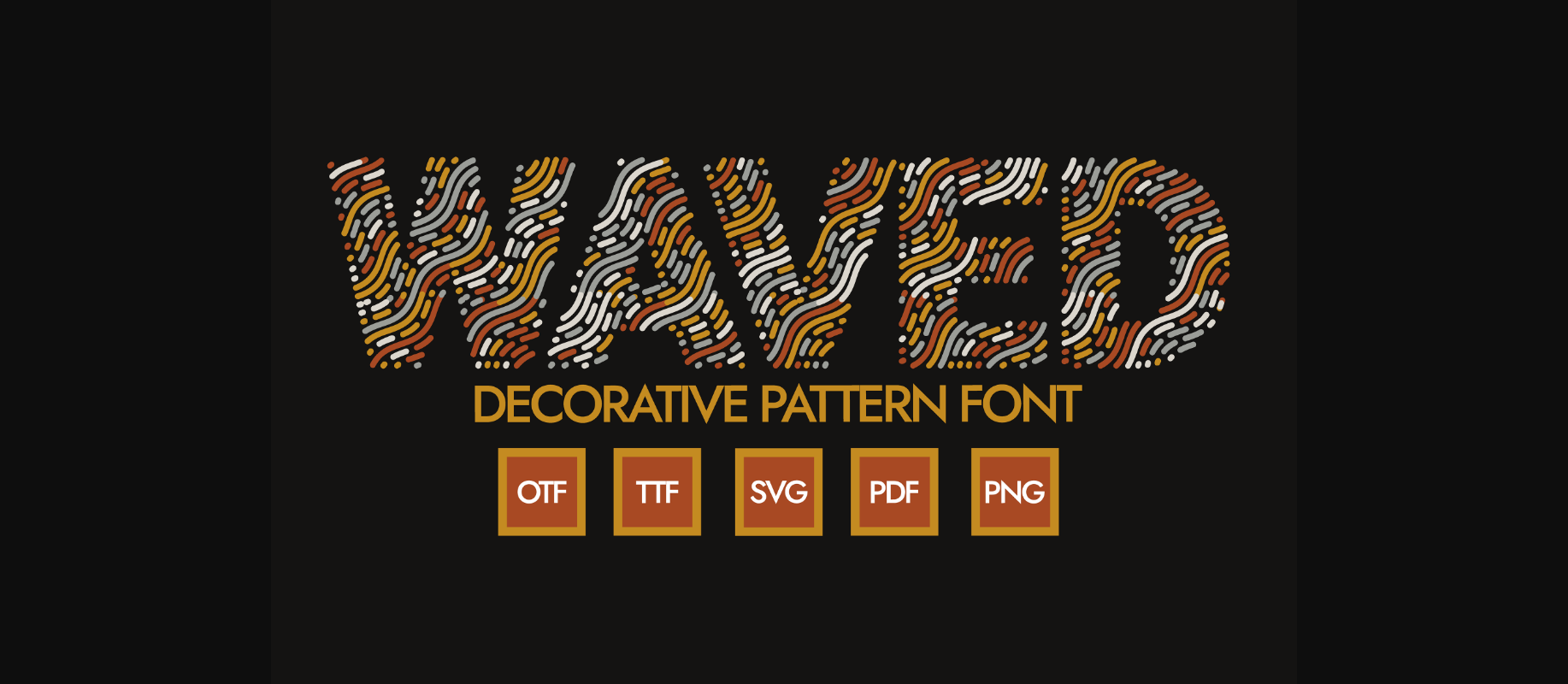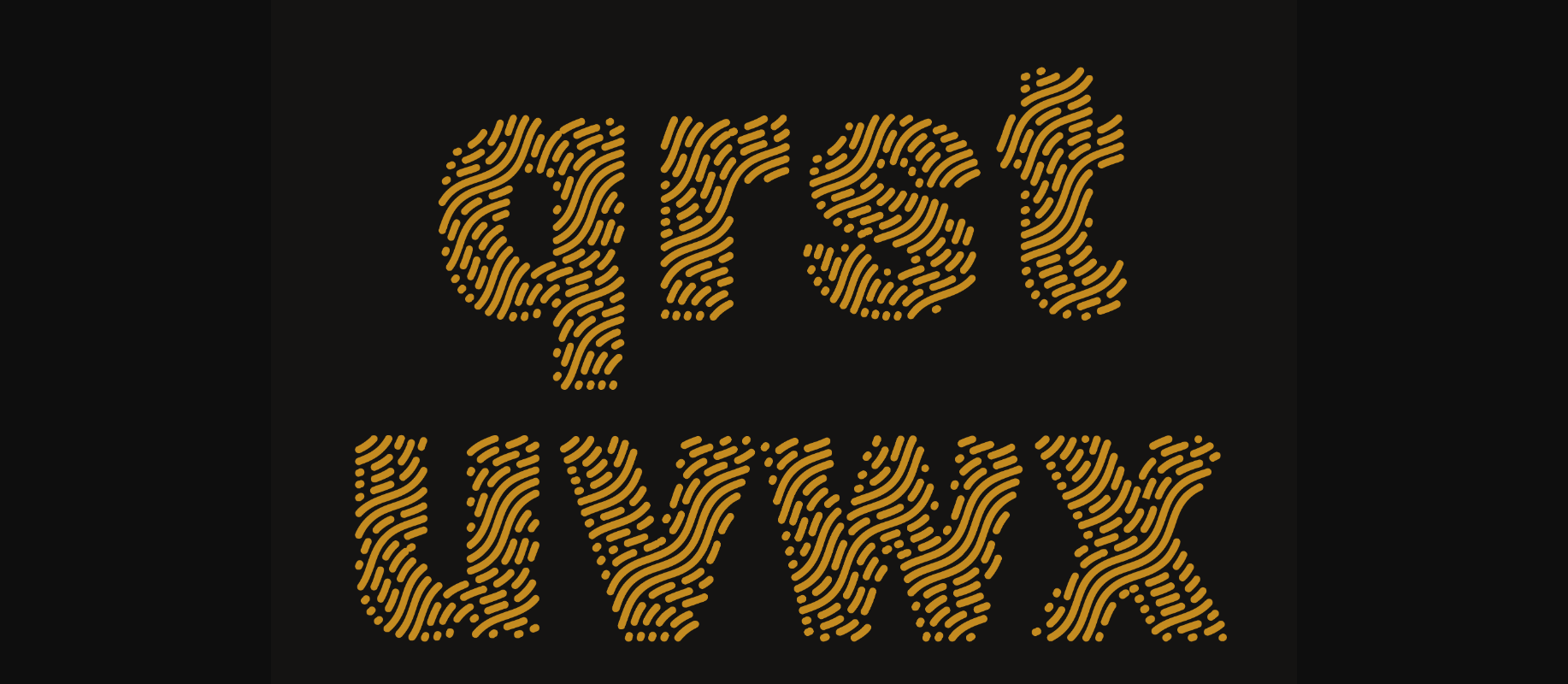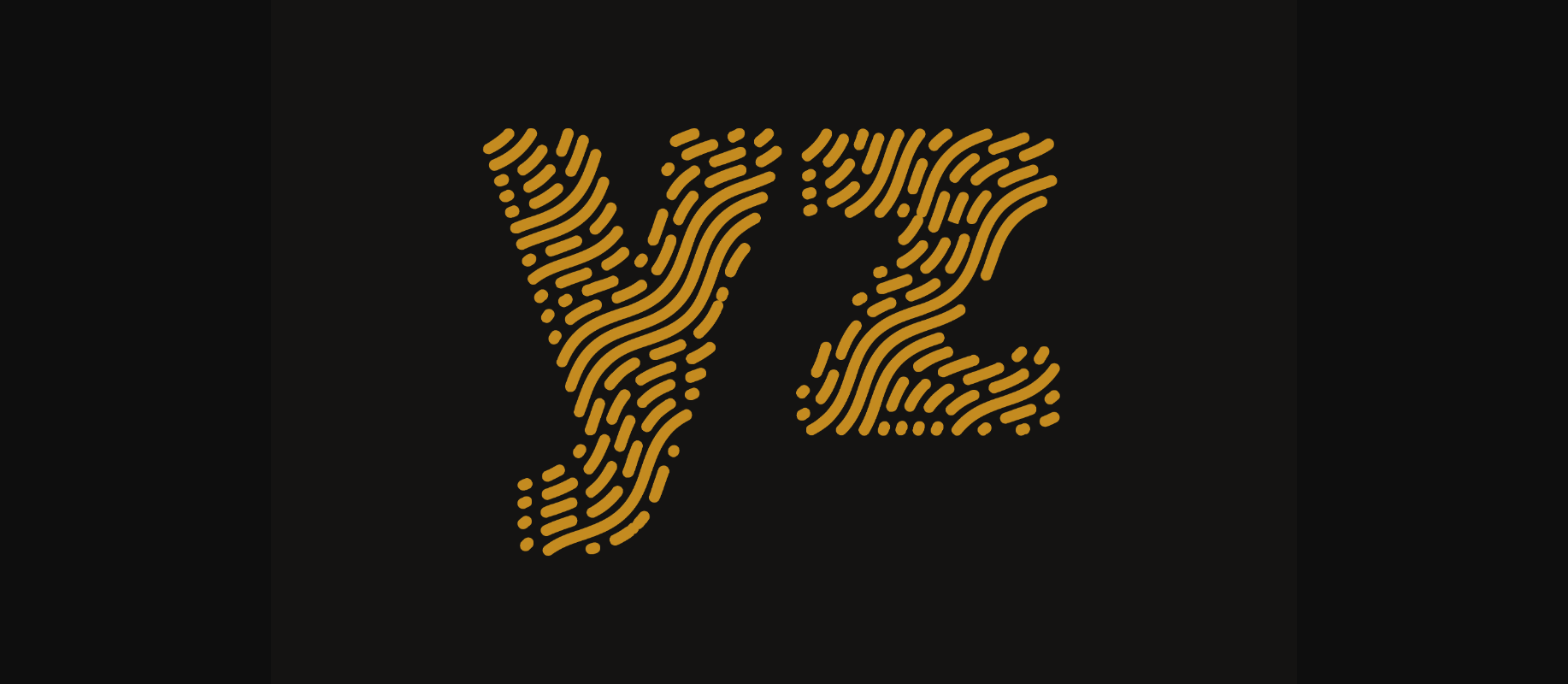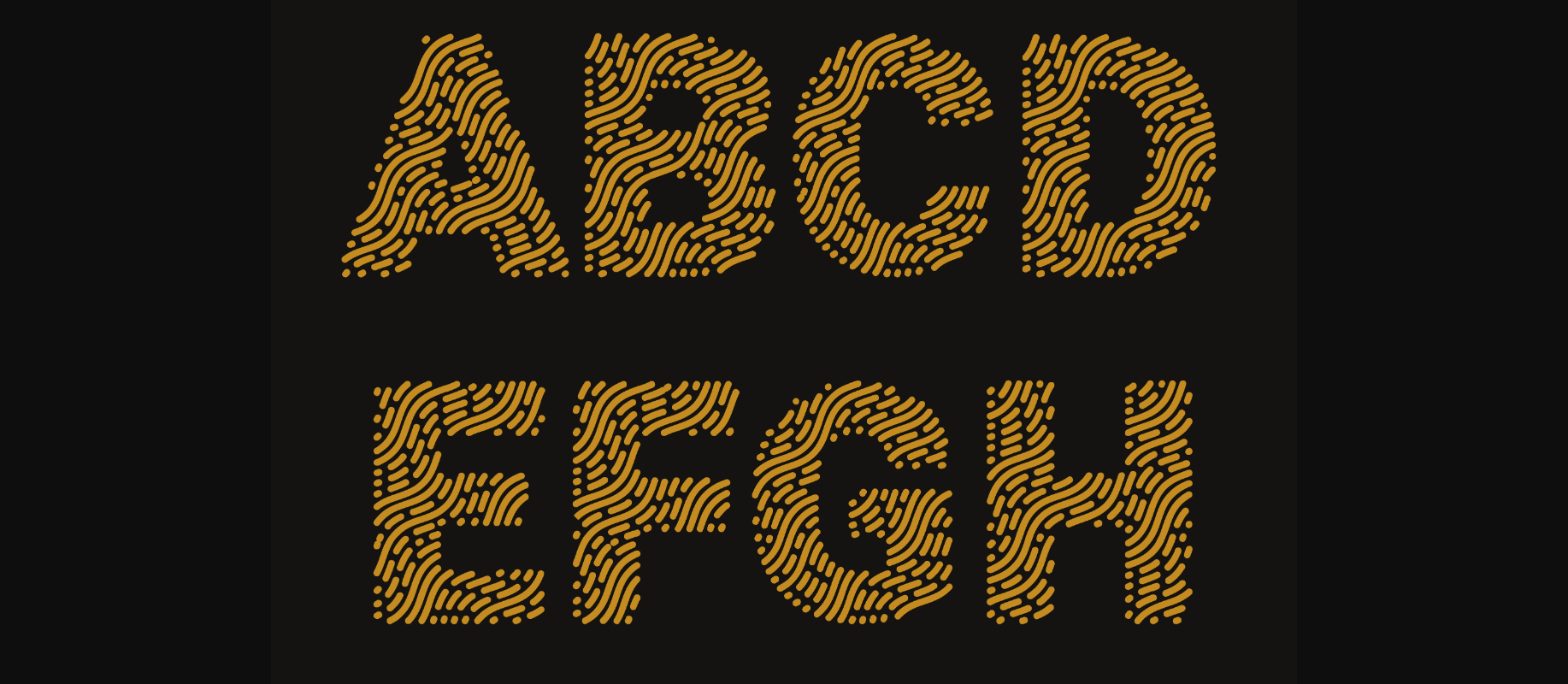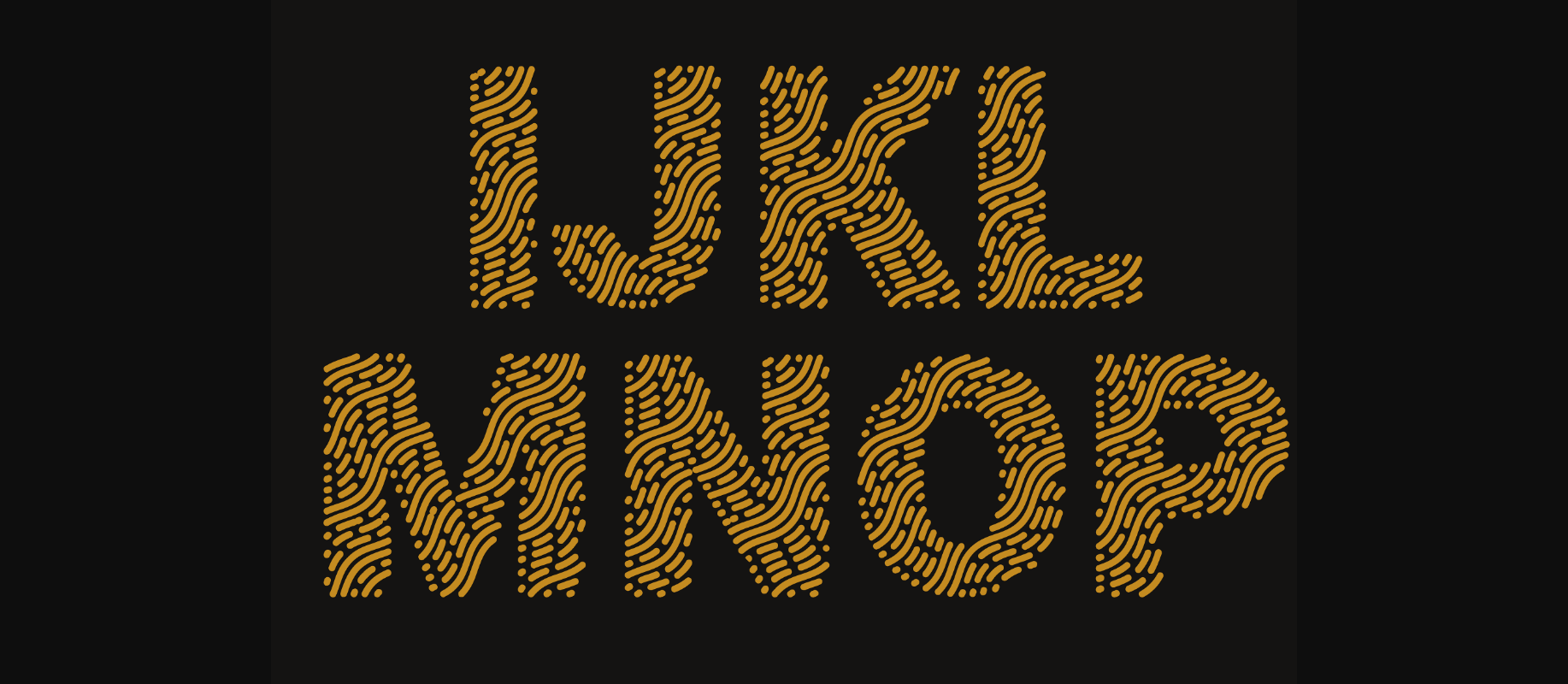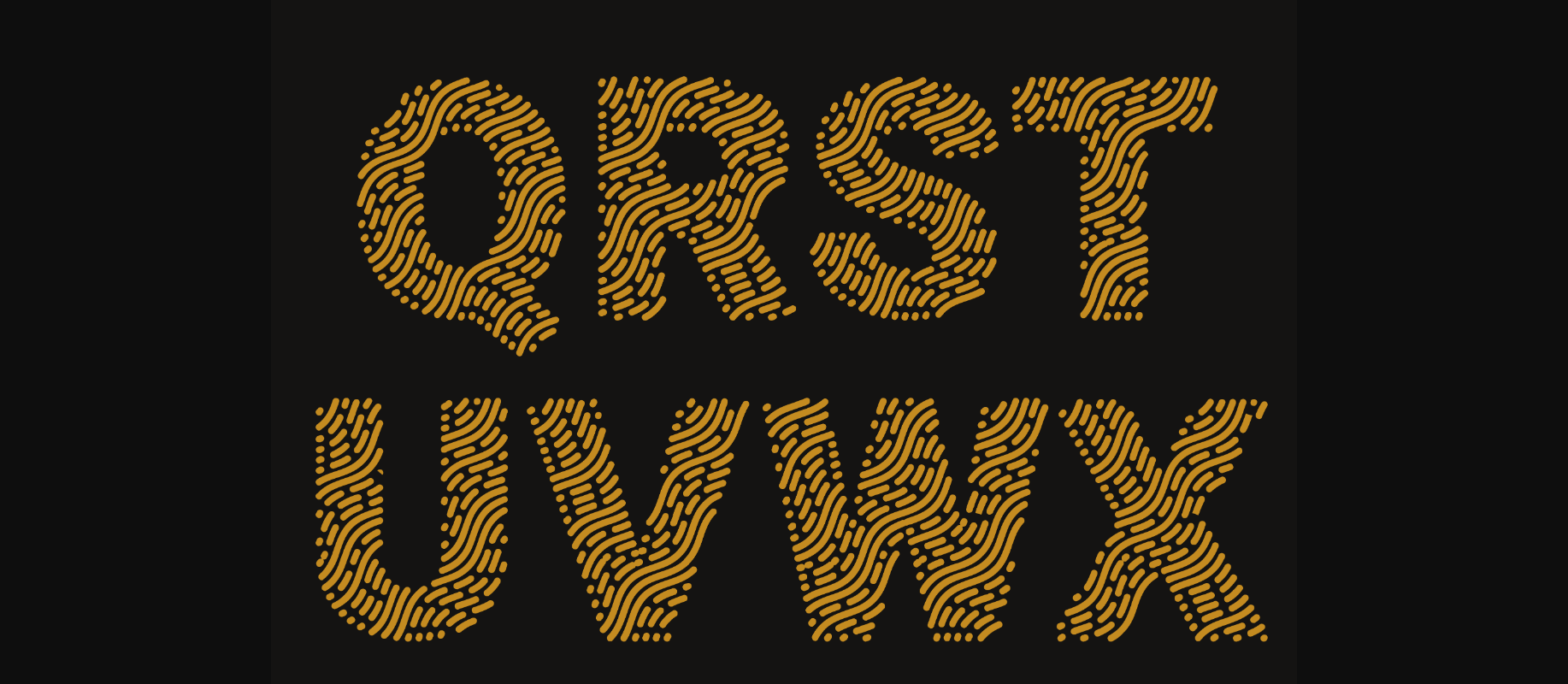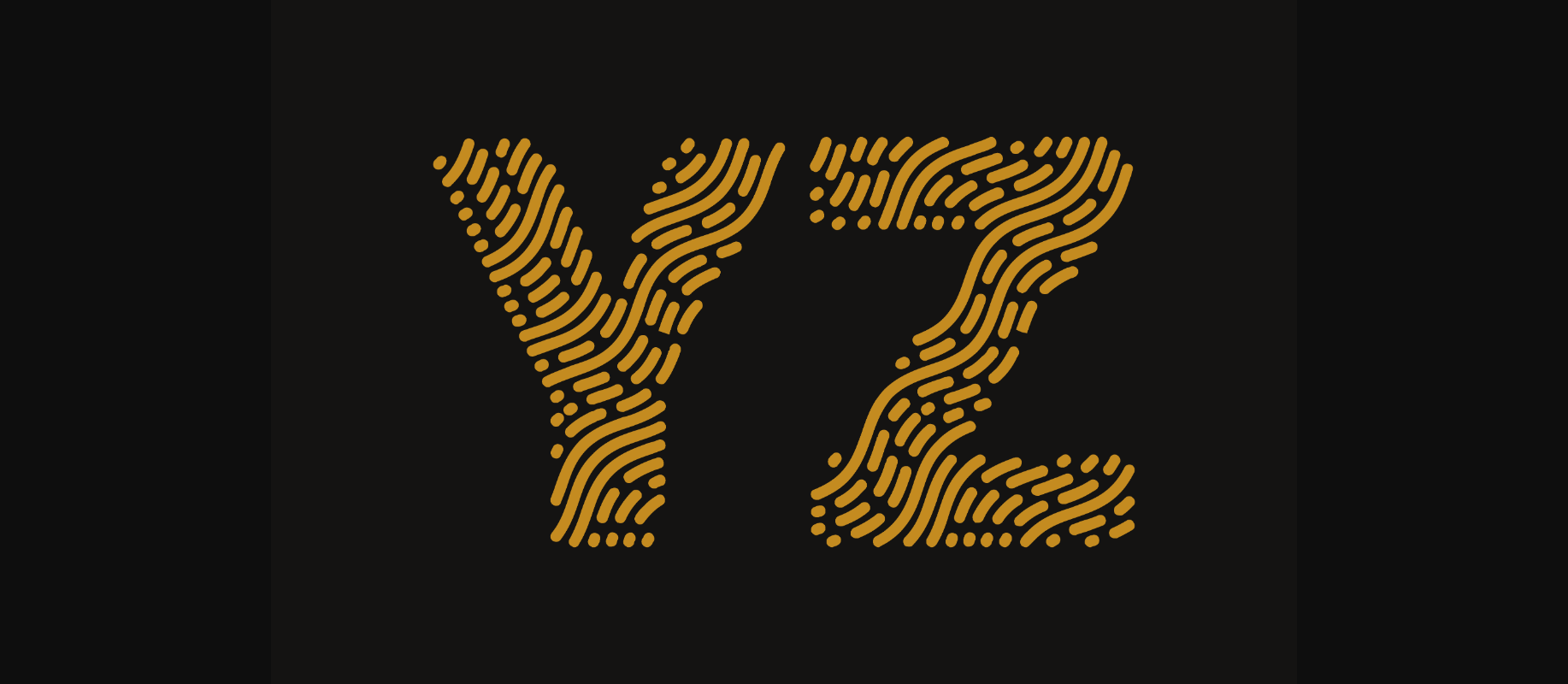
Waved Font
About Waved Font
Waved is an incredibly unique and cool looking decorative font. It has a modern yet whimsical style and it will undoubtedly immerse your designs into a magical world.